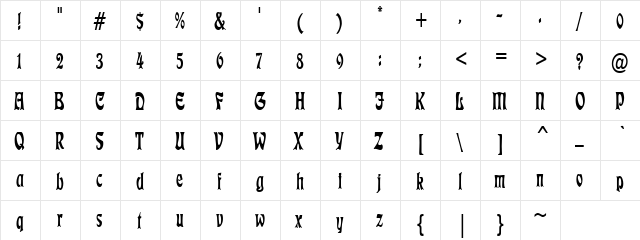
Goil Regular
Design Context for Goil Typeface
Goil is a composed and adaptable typeface that performs quietly and consistently across a wide range of design contexts.